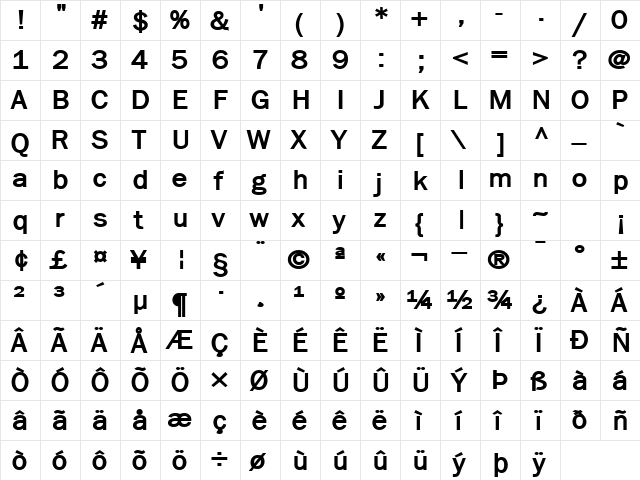
LibraryGothicExtraBold Regular
Design Context for LibraryGothicExtraBold Typeface
LibraryGothicExtraBold has the quiet confidence of well-executed sans-serif typography: versatile, unobtrusive, and dependable at any size. Its bold stroke weight gives it real presence on the page.
A strong choice for UI design, app interfaces, bold signage, and corporate brand systems.
Font Pairing: Use LibraryGothicExtraBold for headlines alongside a lighter-weight sans or serif for body copy to establish clear visual hierarchy.
Pro Tip: Pair LibraryGothicExtraBold with a display or serif font for headlines — its neutral character makes it an excellent supporting player in complex typographic systems.